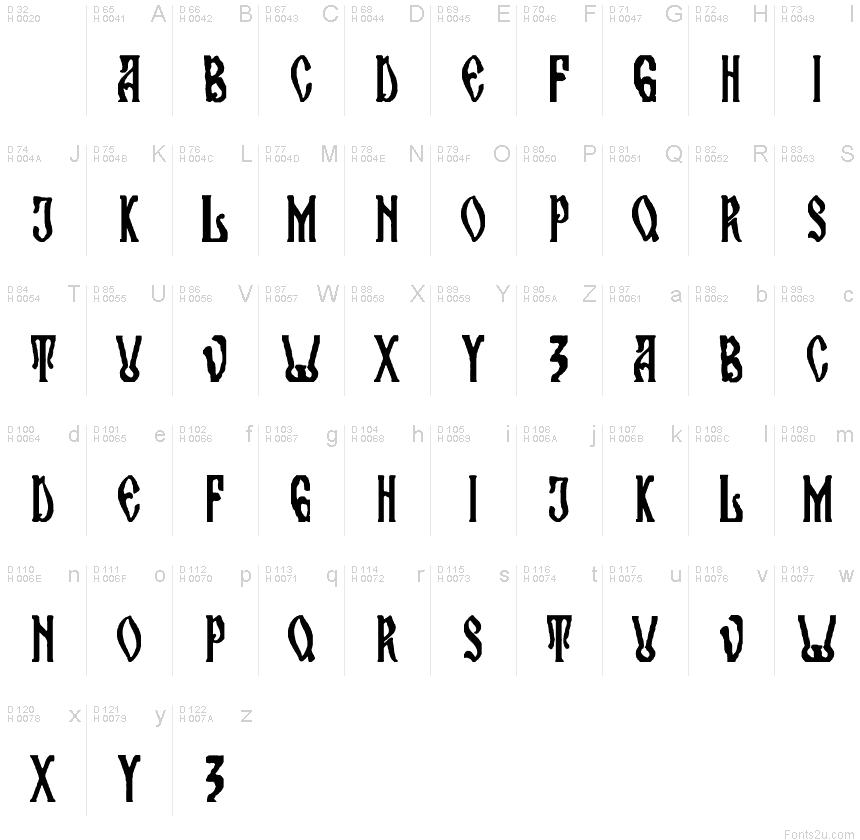
maran orthodox church
Maran Orthodox Church is a free medieval gothic font marked by tall, narrow blackletter forms and pointed cuts that give the lettering a carved, church-sign presence. The repeated vertical rhythm and sharp breaks keep the structure formal and ceremonial rather than plain.
It carries enough ceremony for religious event posters, hymn books, certificate titles, album art, and heritage signage, especially when the design needs a formal blackletter voice. The sharp structure gives those projects an old-world tone without needing extra ornament or decoration.